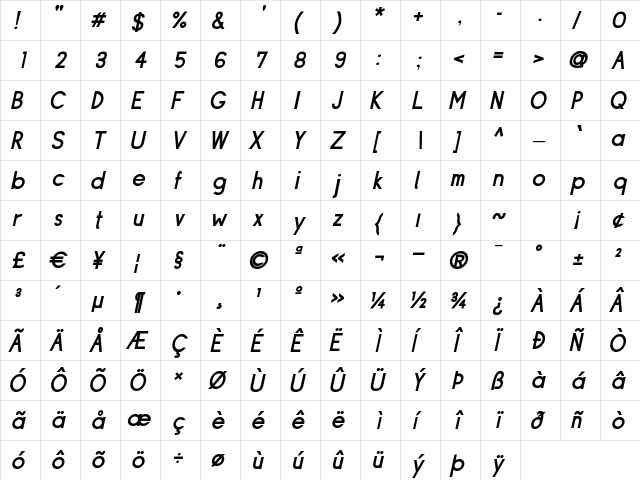
Siple DemiBoldOblique
Design Context for Siple Typeface
Siple is a composed and adaptable typeface that performs quietly and consistently across a wide range of design contexts. The dynamic lean of this cut emphasises speed and emphasis in any layout. The heavy weight commands attention and anchors typographic hierarchies.
Pro Tip: Try Siple for annotation and caption copy alongside an upright companion — the contrast in angle creates a dynamic but ordered typographic system.